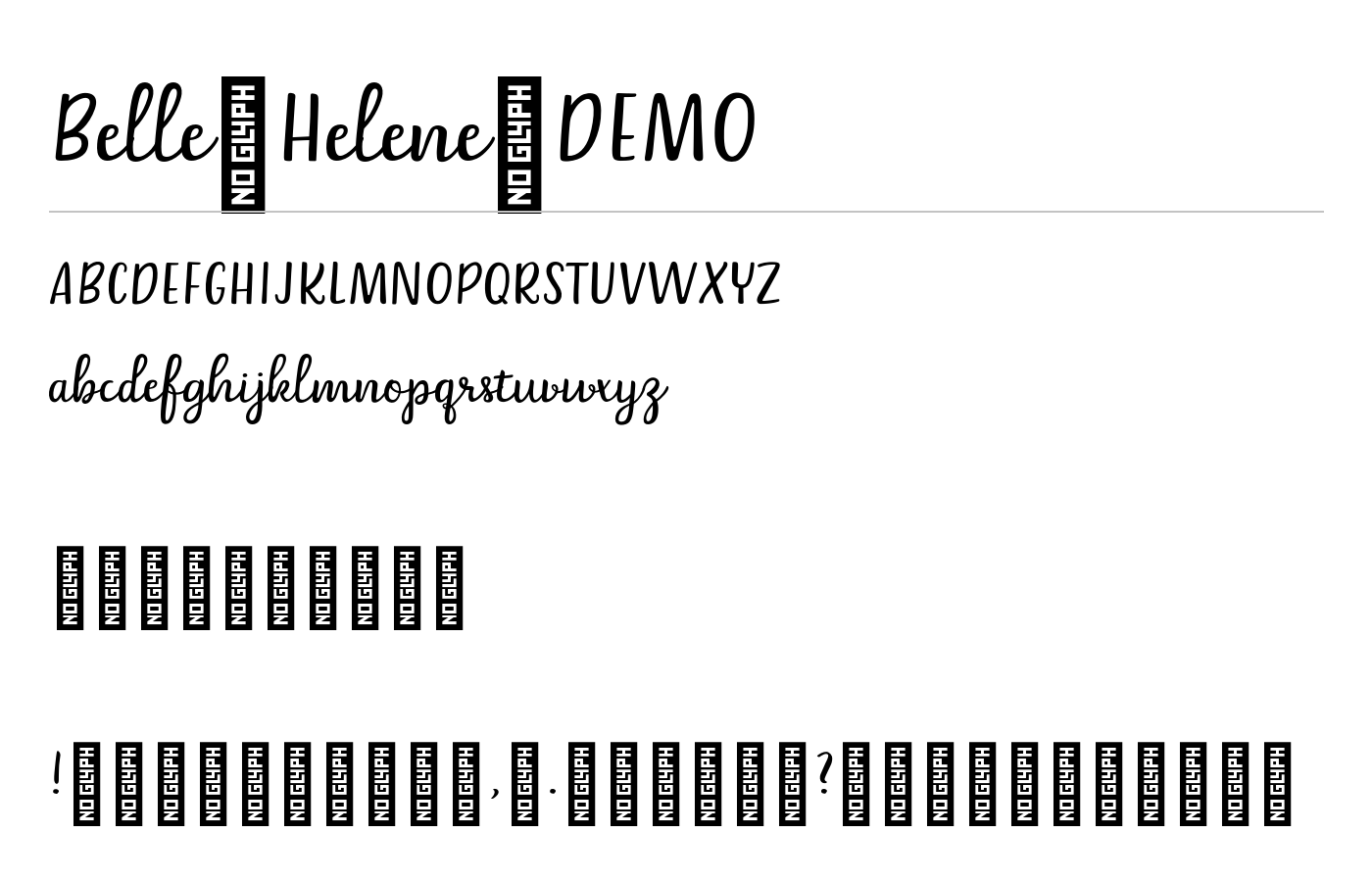
Belle-Helene-DEMO is a charming script font with a playful yet elegant feel, featuring smooth, flowing lines and a casual handwritten style. Its moderate contrast and tall x-height make it readable while maintaining a personal, inviting touch, ideal for creative branding, invitations, and lifestyle projects that seek a friendly and stylish appearance. This font works well in headlines and short text where a warm, approachable personality is desired.
Belle-Helene-DEMO Font